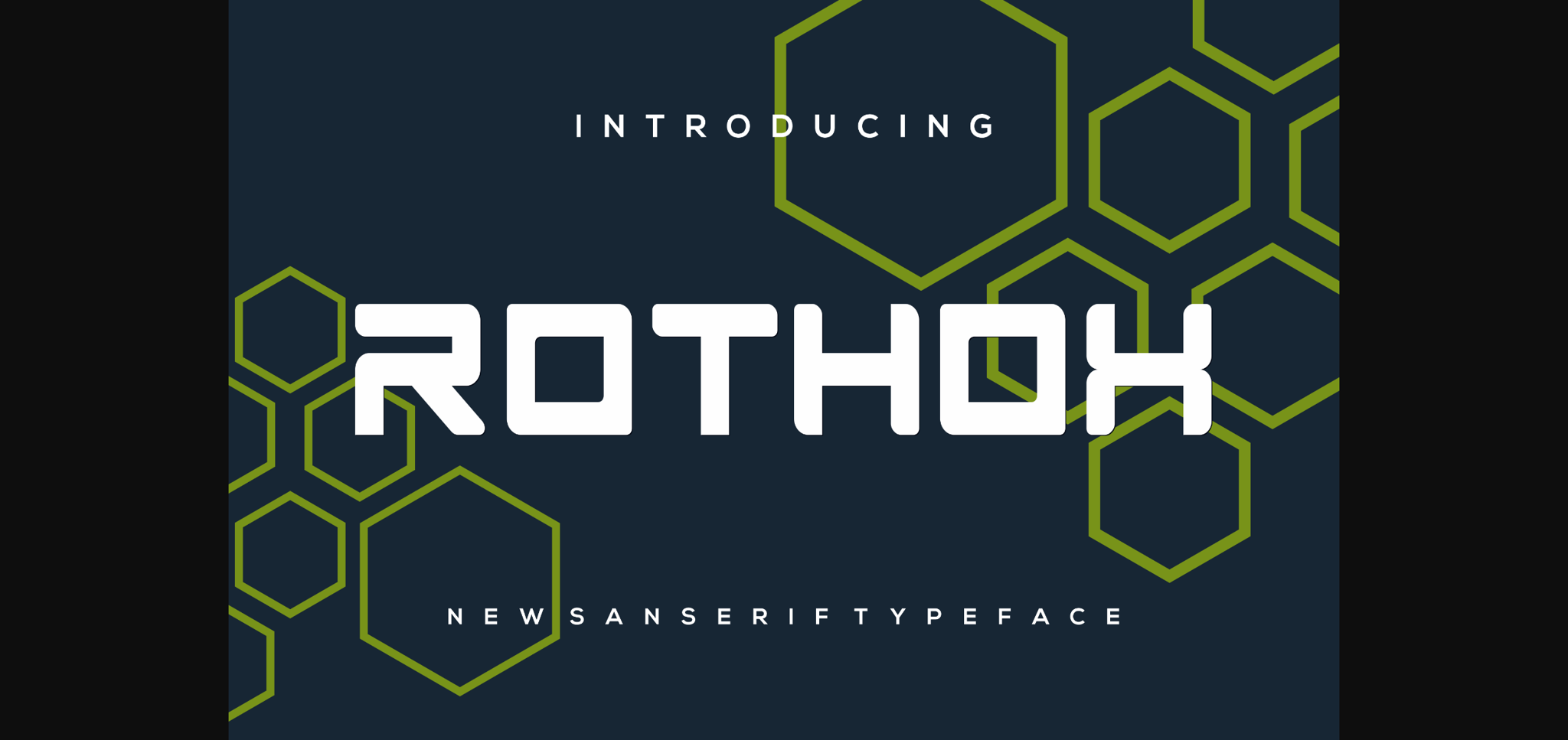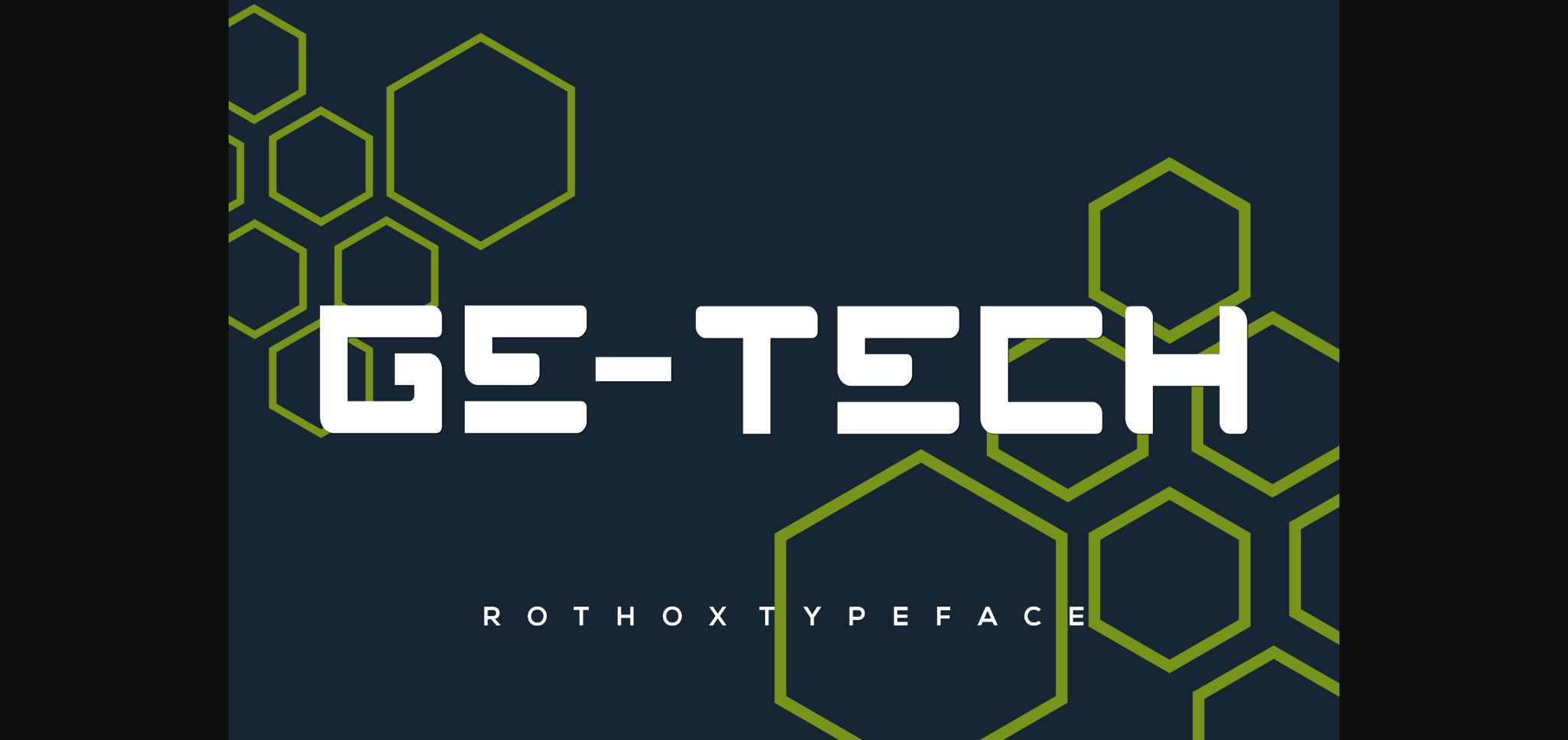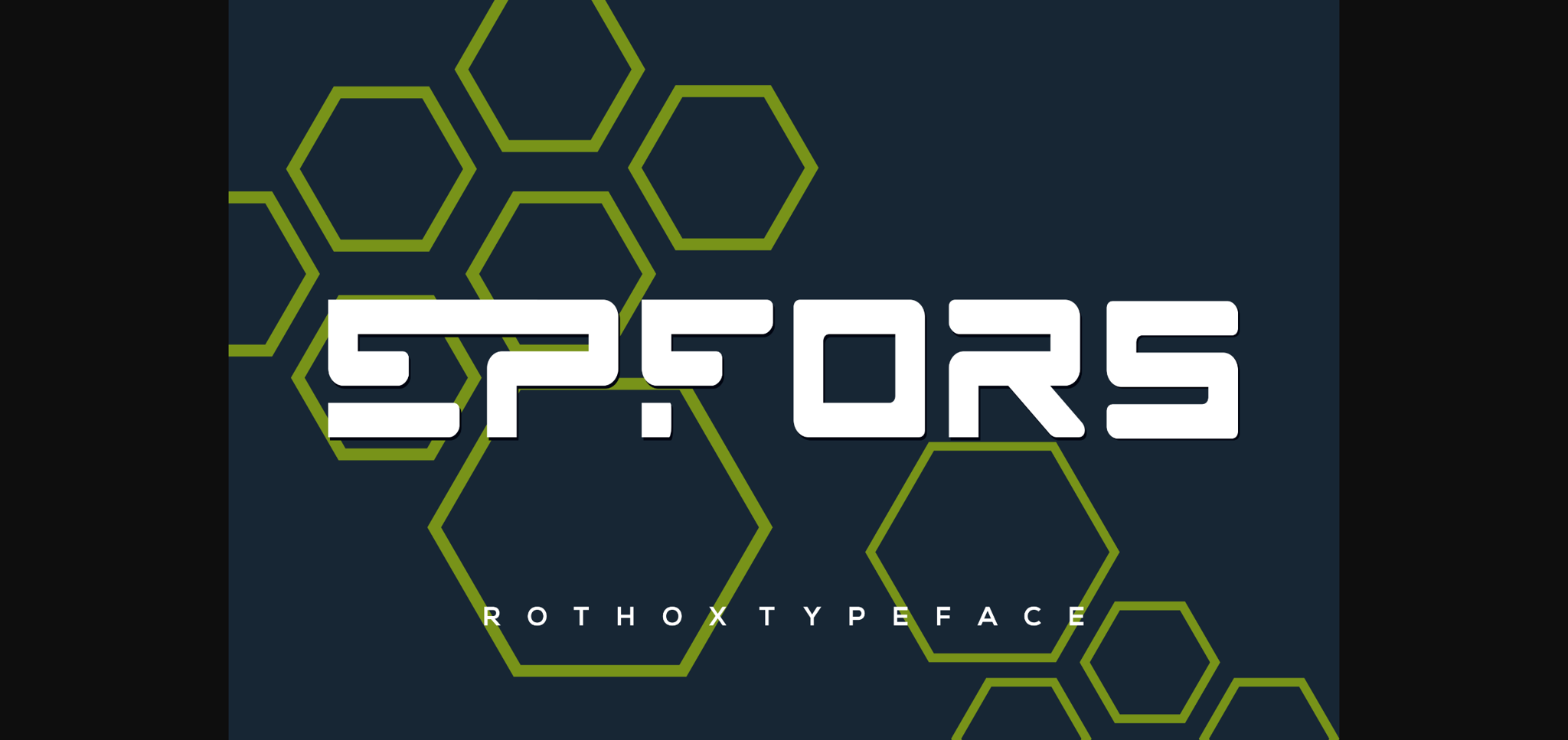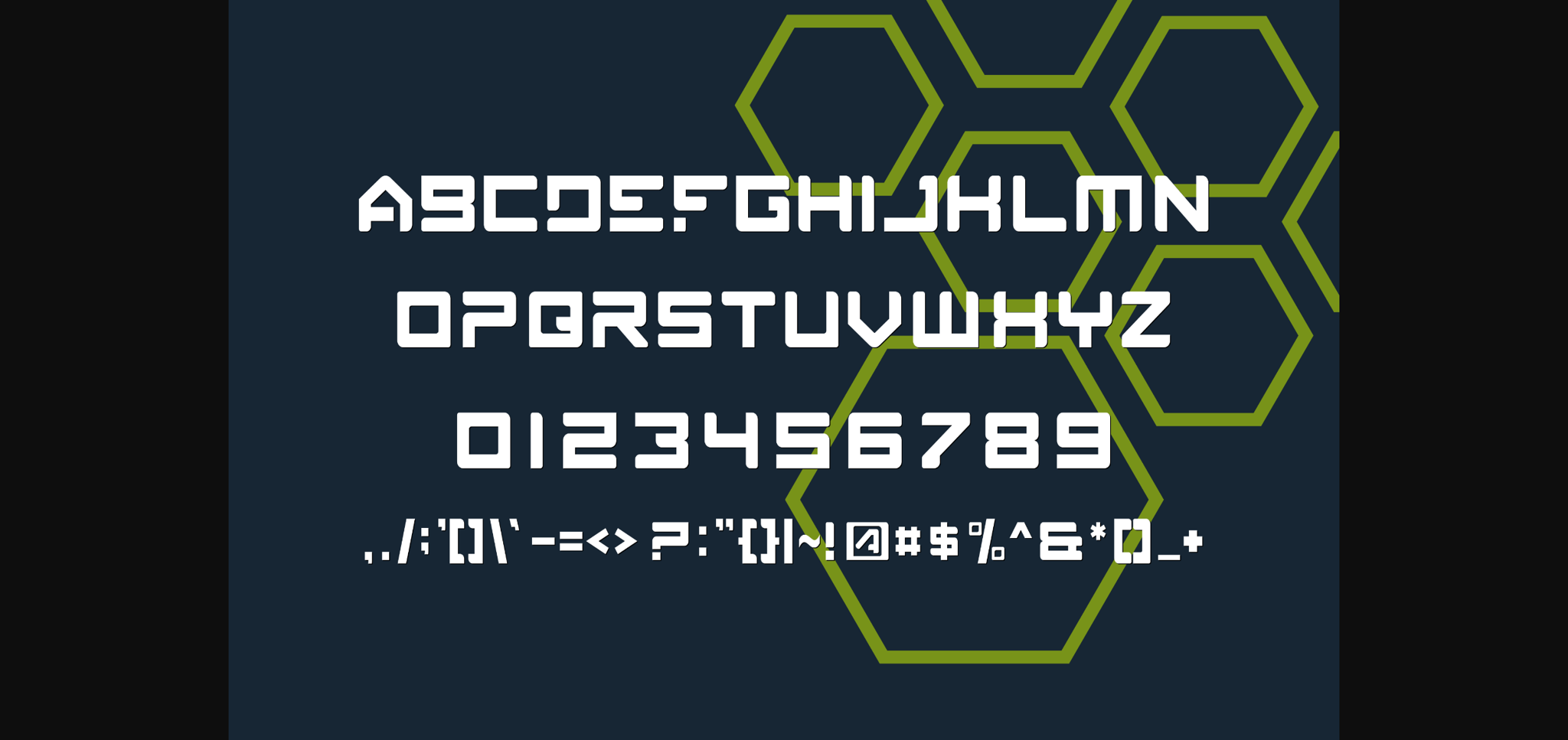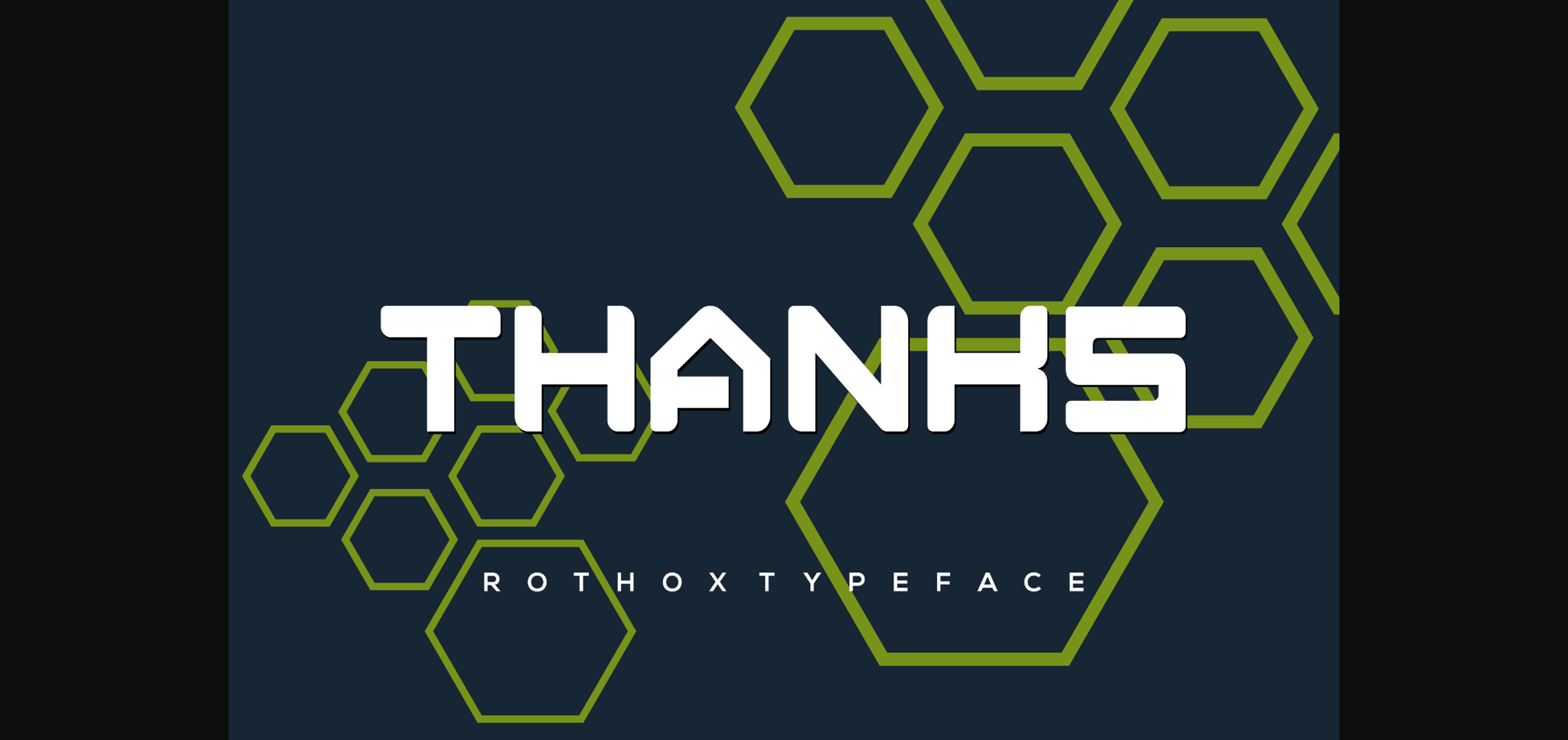
HomeSans Serif FontsRothox Font Sans Serif Fonts Rothox Font FacebookXPinterestWhatsApp 1 of 7 ... Rothox Font Poster 2... Rothox Font Poster 3... Rothox Font Poster 4... Rothox Font Poster 5... Rothox Font Poster 6... Rothox Font Poster 7... About Rothox Font Rothoxis a modern and futuristic sans serif font suitable for any tech-related project. Use it to create futuristic logos, modern titles, tech branding designs, or anything else. DOWNLOAD NOW People also explored Everlost Font Stylish Font Purple Candy Font Whitley Emerald Font Yellow Banana Font Sweet Renata Font Bantello Font Madelin Cheryl Font De Arloy Font 254 0 TagsRothoxRothox Font Previous articleMantra FontNext articleAwendela Beloved Font LEAVE A REPLY Cancel reply Comment: Please enter your comment! Name:* Please enter your name here Email:* You have entered an incorrect email address! Please enter your email address here Website: Save my name, email, and website in this browser for the next time I comment. Personal Use Free Sarwendah Personal Use Free Read more about this font Rise of Kingdom Personal Use Free Read more about this font Rogueland Personal Use Free Read more about this font Sunbright Font Personal Use Free Read more about this font BLOG How to Install and Use Fonts on Windows, macOS, and Web Projects How to Install and Use Fonts on Windows, macOS, and Web Projects Fonts are a crucial part of design and branding. Whether you’re designing a... Free vs Paid Fonts: Why Investing in Premium Fonts Is Worth It The 10 Best Handwriting Fonts to Add Personality to Your Designs How to Cut Any Font on Cricut: Convert a Font to SVG (Free)